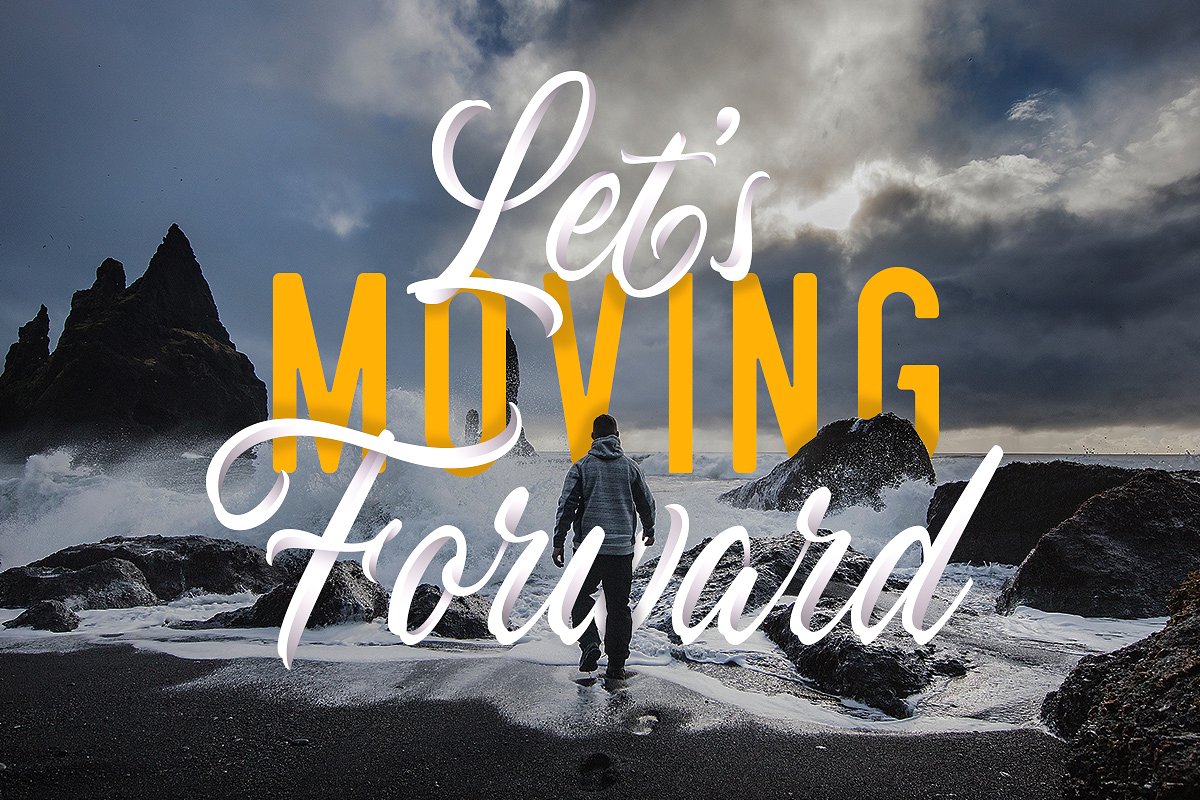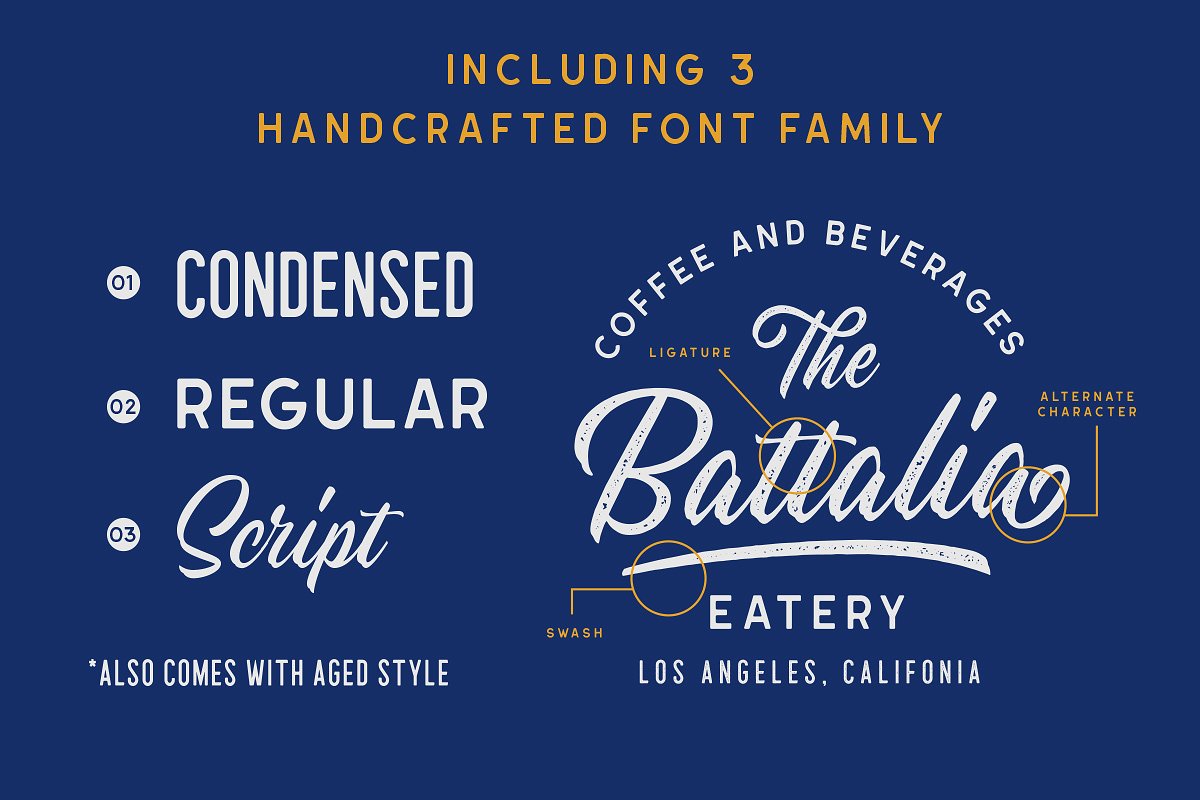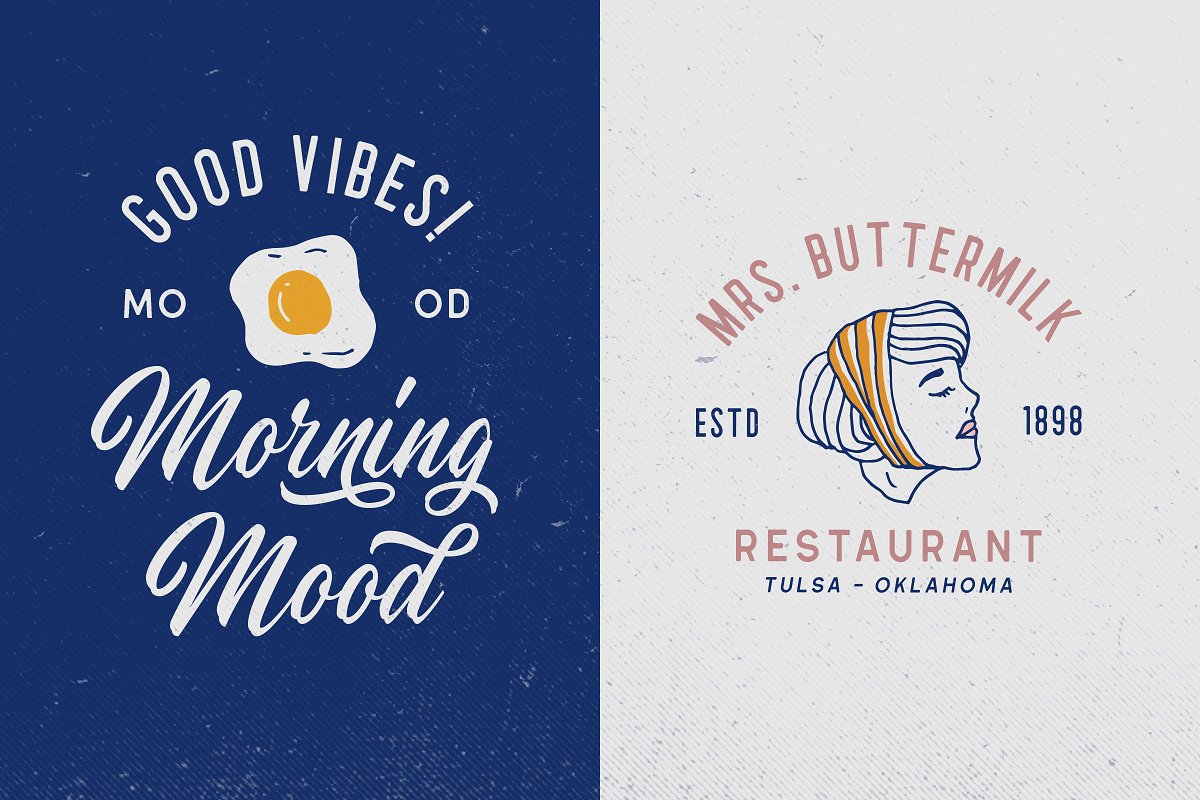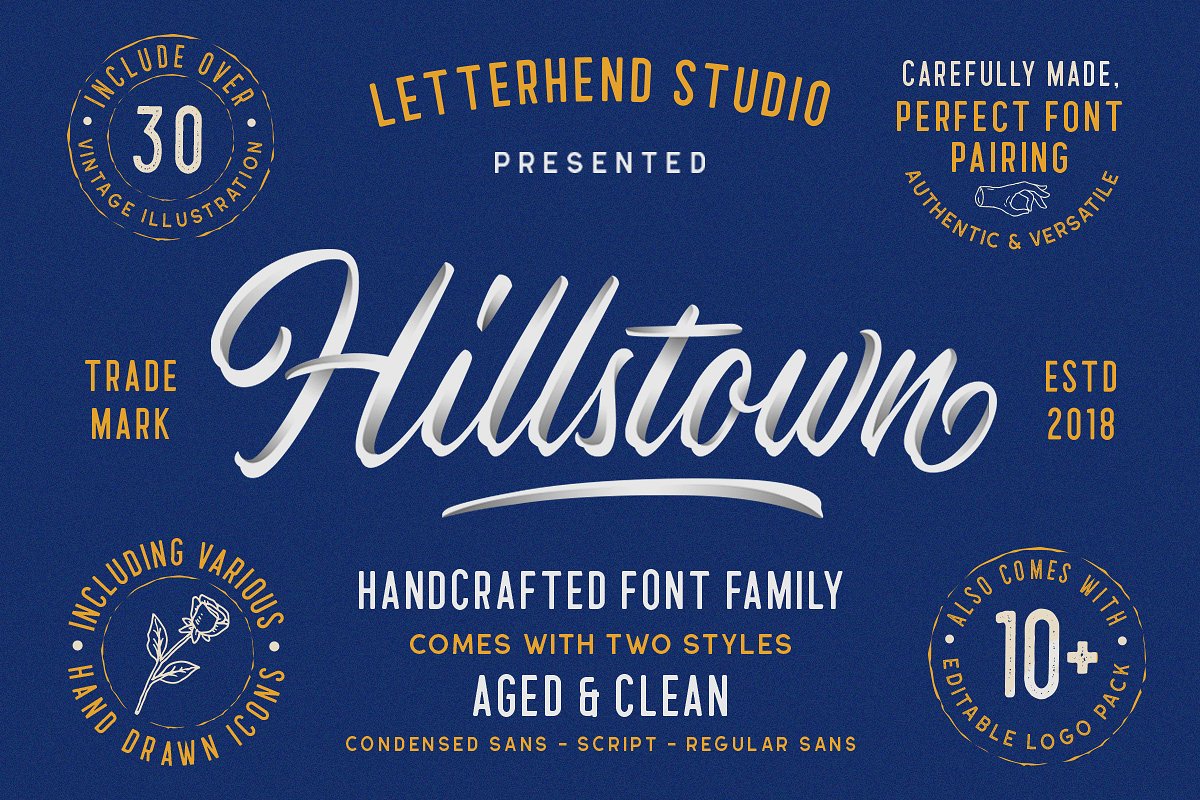
Hillstown Font Collection
Hillstown Font Collection – Free Demo
Hello Font Lovers! A handcrafted font family. Introducing Hillstown Script DEMO. Hillstown is a font collection that contains completely three different font that will perfectly complement each other. You will get script, sans, and condensed sans. It also comes with a clean and aged style each font. The classic feel is really perfect for you who needs a typeface for especially logotype, apparel, invitation, branding, packaging, advertising etc.